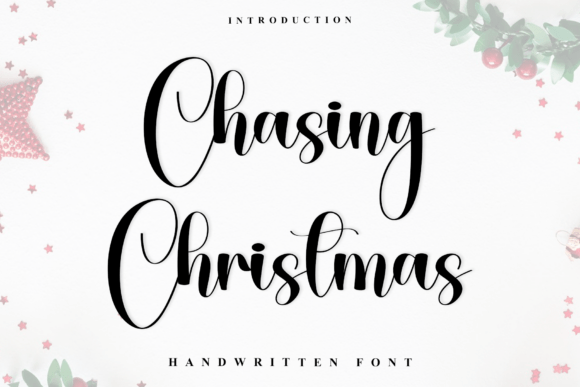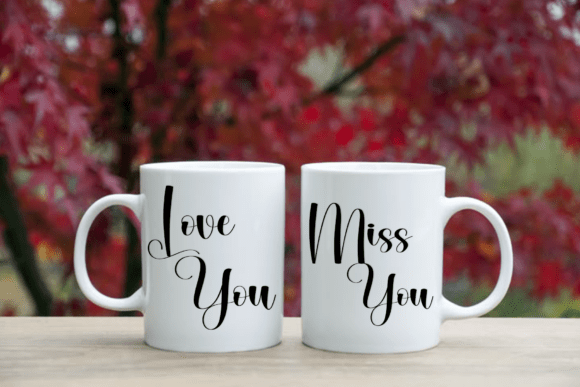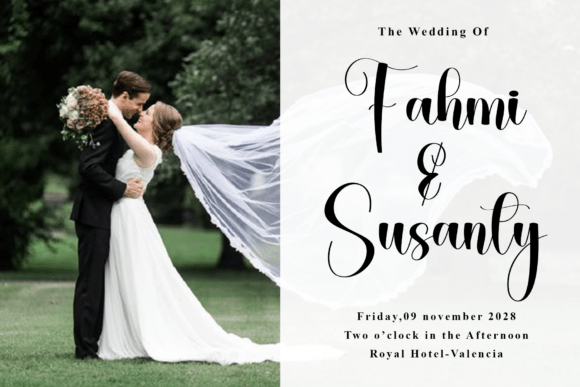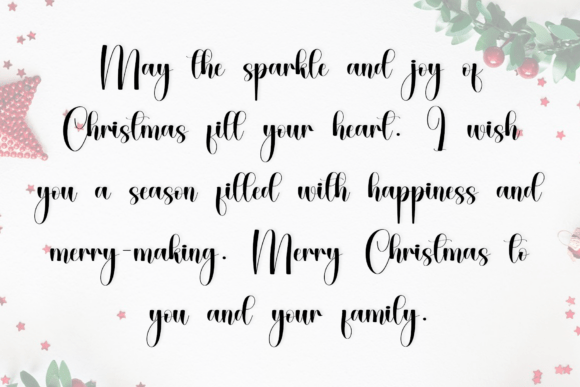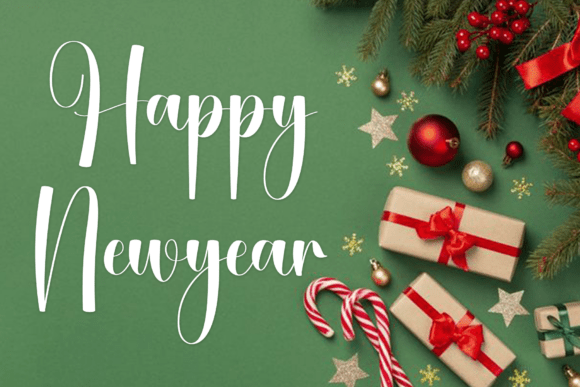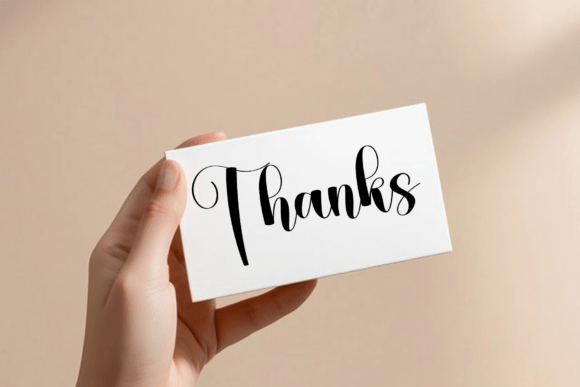
Get into the Holiday Spirit with Chasing Christmas Font
As the holiday season approaches, designers and creatives start brainstorming ideas for unique and festive projects. You’re probably sitting at your desk, surrounded by twinkling lights and the scent of pine, wondering how to make your designs stand out from the crowd. That’s when it hits you – a spark of inspiration that sets your imagination ablaze. For those moments of creative genius, you’ll need a font that’s just as magical as your ideas.
Enter the Chasing Christmas Font, a delicate and charming typeface carefully crafted to evoke the essence of the holiday season. This font is perfect for writing letters, invitations, food product labels, titles, and more. Its unique design will add a touch of whimsy and wonder to any project, making it a valuable asset for designers looking to create something truly special.
Key Features of “Chasing Christmas Font”
- Font Family: Chasing Christmas is a display font family designed for festive and holiday-themed projects.
- Unique Characteristics: Features a unique blend of modern and vintage elements, with intricate details and ornaments that evoke a sense of nostalgia and festivity.
Chasing Christmas Font Review
Overall, I think “Chasing Christmas Font” is a lovely addition to any holiday-themed design project. It’s got a certain je ne sais quoi that’s perfect for capturing the magic of the season.
- ✨ Unique and whimsical feel: The font’s intricate details and cursive script make it stand out from more traditional holiday fonts.
- ✨ Perfect for festive branding: The font’s playful and cheerful vibe is ideal for creating eye-catching holiday marketing materials.
- ⚠️ Limited character set: The font is primarily designed for display use, so it may not be suitable for large blocks of text.
- ⚠️ Not ideal for body text: While the font is great for headings and titles, it may be too ornate for everyday body text.
Overall, I’d recommend “Chasing Christmas Font” for designers looking to add some holiday flair to their projects. Just be mindful of its limitations and use it wisely.
Use the Chasing Christmas Font to create festive and playful designs for Christmas-themed projects.
The Chasing Christmas Font is perfect for:
Christmas card designs
Party invitations
Decorative signs
Gift tags